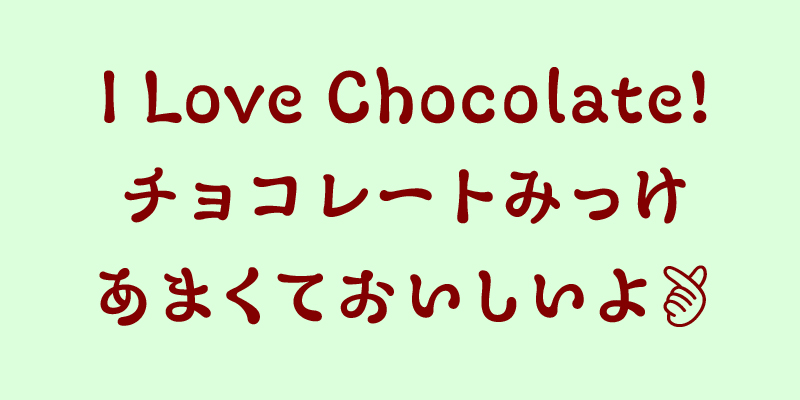
This kana font is shaped as if drawn with a chocolate pen. The font has three weights: Regular, SemiMelt, and the letters become thicker as the chocolate melts. You can transform seamlessly between melting and unmelting when you use this VariableFont, and doing this will express your work dynamically.